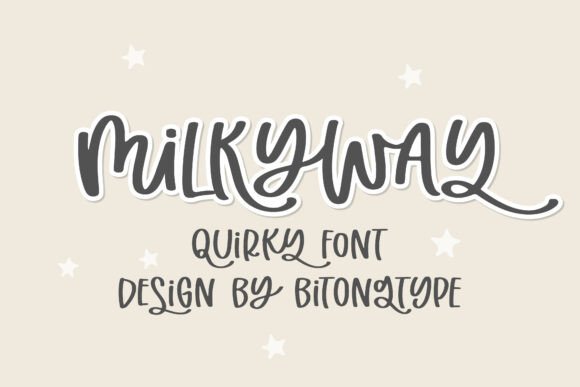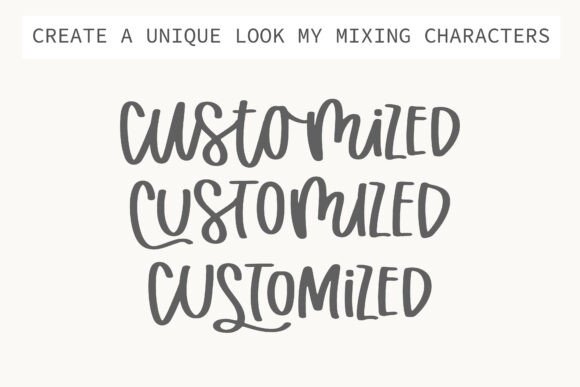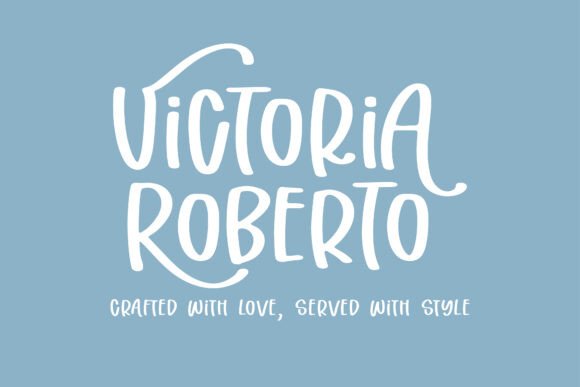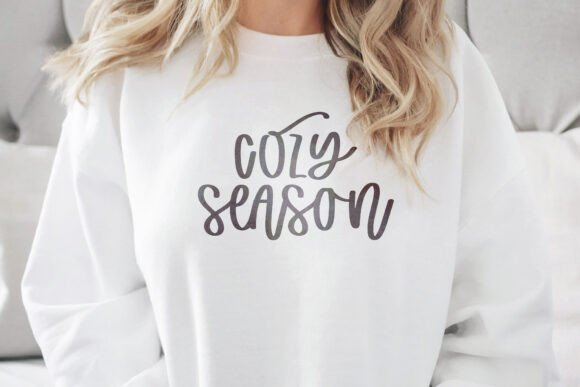
Milky Way Font: Cute Handwritten Font for Cricut & DIY Projects
About the Milky Way Font
Experience the unique personality of Milky Way Font, a font designed for impact. Milky Way is a cool, friendly, and informal handwritten font that can be used for all chalkboard quotes or teaching material! Its authentic look and feel will add a personal and realistic touch to your designs
Milky Way’s informal, handwritten style works best for projects needing a friendly, approachable feel. Ideal applications include short headlines, social media graphics, invitations, and packaging for artisan products. It adds personality to branding for small businesses or creative endeavors. However, its casual nature makes it unsuitable for large blocks of text, body copy, or UI elements where legibility is paramount.
Pairing Milky Way with a clean sans-serif like Open Sans for body text creates a strong visual contrast and enhances readability. For a more playful feel, consider a geometric sans-serif such as Futura. A classic serif like Garamond could offer a sophisticated counterpoint, grounding the handwritten informality.
Milky Way’s core personality is undeniably friendly and approachable, conveying warmth and authenticity. Its slightly imperfect forms add a human touch, ideal for brands emphasizing handcrafted quality or personal connection.